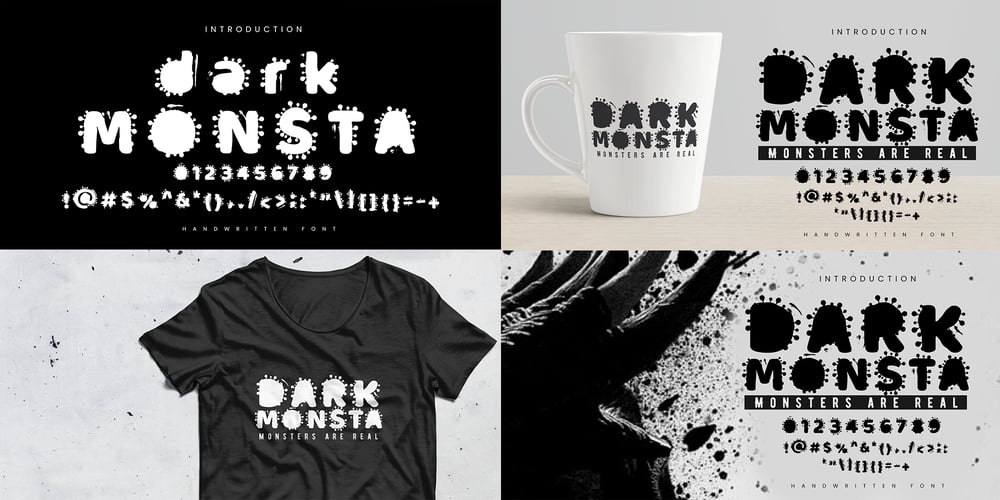
Dark Monsta Font Family was designed by teguh permana and published by Kyooti Bun. Dark Monsta contains 1 styles and family package options. Dark Monsta font is very emotional and innovative products!unique look to company branding, logos, greetings, magazine layout, homeware, prints and invitations.I hope you like itAvailable : uppercase, lowercase, numerals